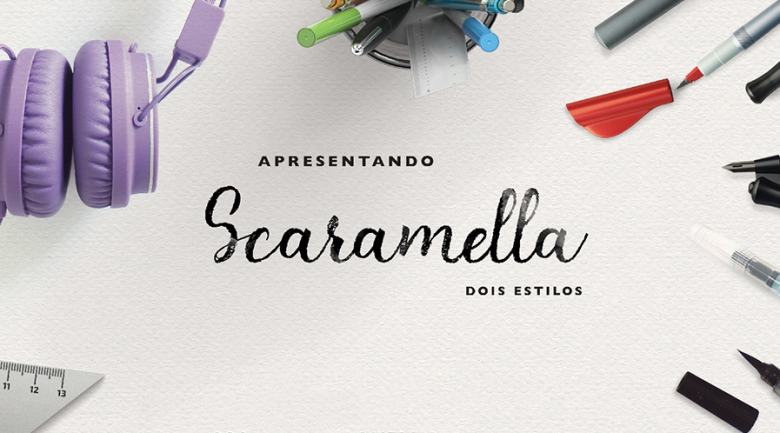
Scaramella Script Font
Introducing Scaramella Script Font. Scaramella designed and shared by Camila Scaramella. This typography was created as a Course Completion Project for the Federal University of Santa Catarina, which aimed to develop a display typography to be made available for free use in graphic materials of projects, collectives, blogs, aimed at feminist causes. It was created on top of a handwritten calligraphy, based on a research within the needs of feminist digital communication…